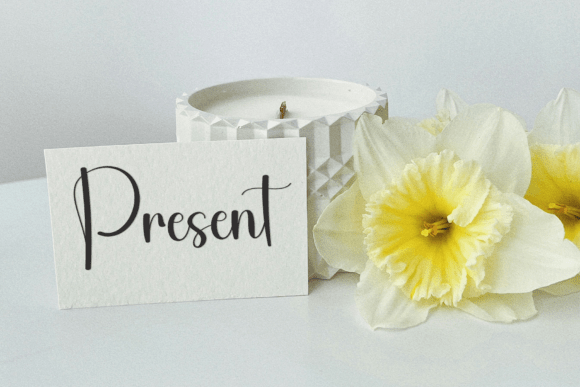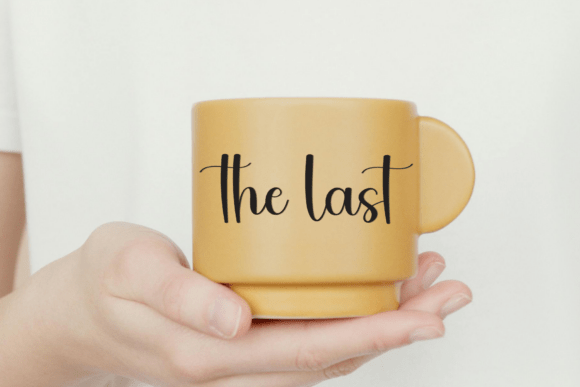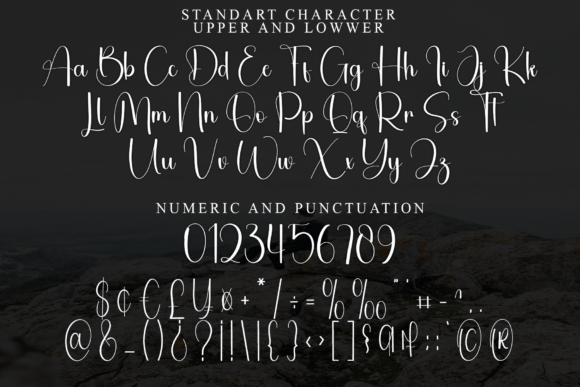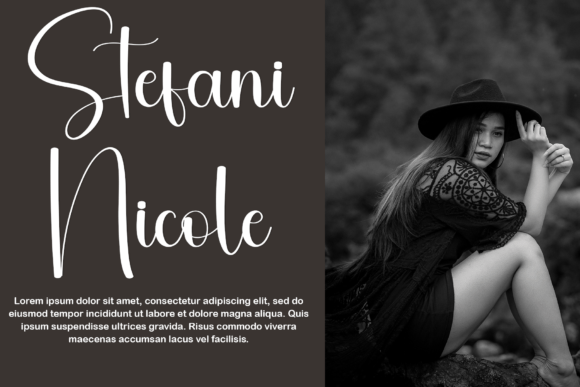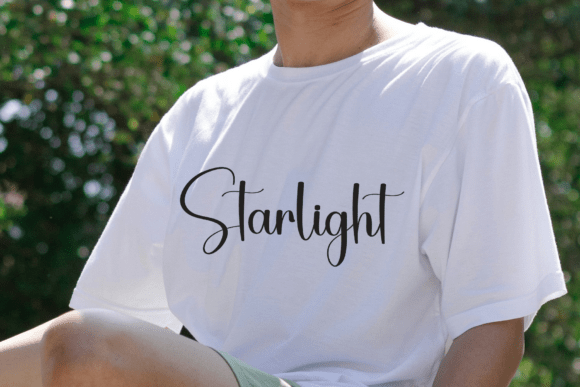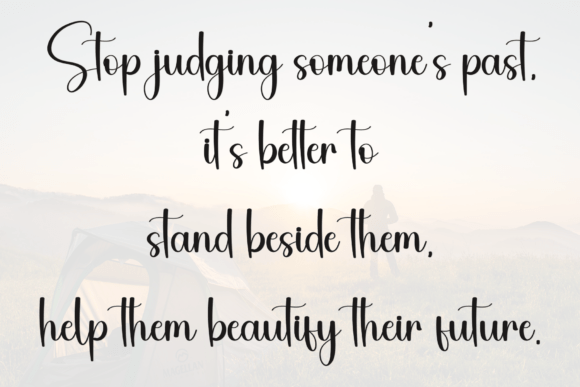
The Ephemeral Charm of Hand-Lettering
Have you ever sat down with a pen and paper, and let your thoughts flow onto the page in a beautiful, swirling script? It’s a feeling that’s hard to replicate with digital tools, but the Bubble Dream Font comes close. This beautifully flowing script font captures the essence of hand-lettered charm, with smooth curves and a natural rhythm that’s perfect for adding a touch of personality to your designs.
Whether you’re a designer looking to add a touch of whimsy to your work, or simply someone who wants to add a little extra flair to your personal stationery, the Bubble Dream Font is an invaluable tool. Its stylish, casual elegance makes it versatile for both formal and playful design needs, making it a must-have for anyone who wants to add a little bit of magic to their work.
Bubble Dream Font Key Features
- Font Family: Bubble Dream Font is a unique, hand-drawn font with a playful, dreamy feel.
- Character Set: Includes a wide range of characters, including uppercase and lowercase letters, numbers, and punctuation marks.
- Unique Characteristics: Features hand-drawn, irregular shapes and subtle imperfections, giving it a one-of-a-kind, whimsical feel.
Bubble Dream Font Review
I’ve had the chance to work with Bubble Dream Font, and I’m here to share my honest thoughts.
Its playful, whimsical feel is perfect for children’s books, magazines, and other projects that require a light-hearted tone.
The font’s rounded edges and smooth curves make it easy to read, even at smaller sizes.
It’s available in a range of weights and styles, giving designers plenty of options to choose from.
While the font’s aesthetic is great for some projects, it may not be suitable for more formal or professional contexts.
Some users may find the font’s rounded edges and smooth curves to be too simplistic or lacking in character.
The font may not be as versatile as some other options, and its unique style may not be to every designer’s taste.
Bubble Dream Font is a charming, playful font that’s perfect for certain types of projects. While it may not be the best choice for every design, it’s a great option for those looking for a light-hearted, whimsical feel. With its range of weights and styles, designers have plenty of options to choose from, and its rounded edges and smooth curves make it easy to read. However, it may not be suitable for more formal or professional contexts, and some users may find it too simplistic or lacking in character.
The Bubble Dream Font is perfect for:
- Creating whimsical and playful designs.
- Adding a touch of fantasy to your brand or project.
- Designing children’s books or educational materials.
Is the Bubble Dream Font suitable for digital use?
Yes, the Bubble Dream Font is optimized for digital use and can be used in a variety of applications, including websites, social media, and mobile apps. The font is designed to be clear and readable at a range of sizes and resolutions.